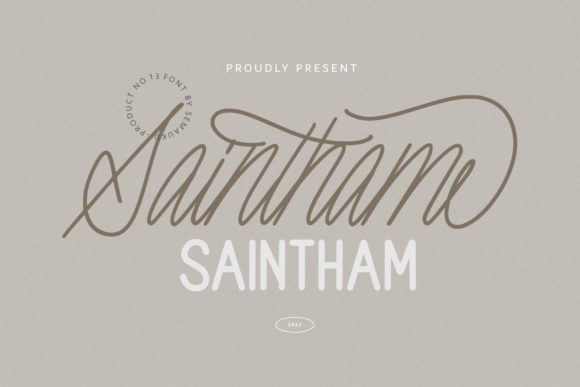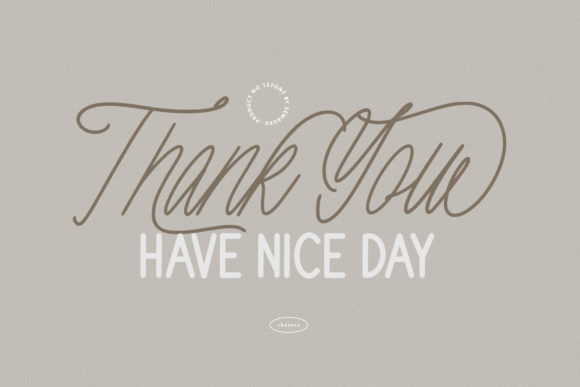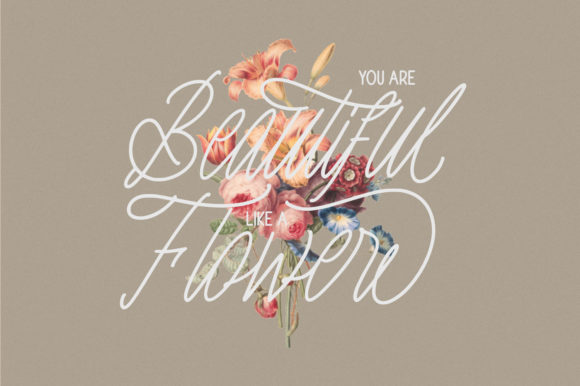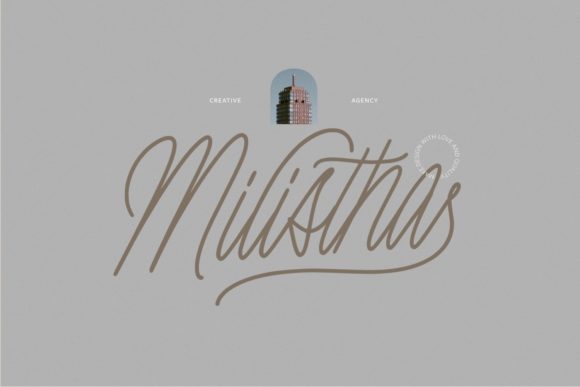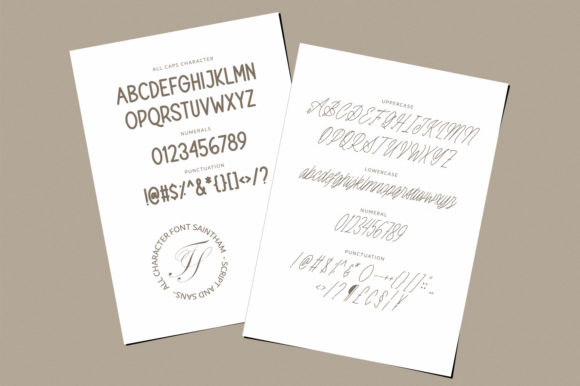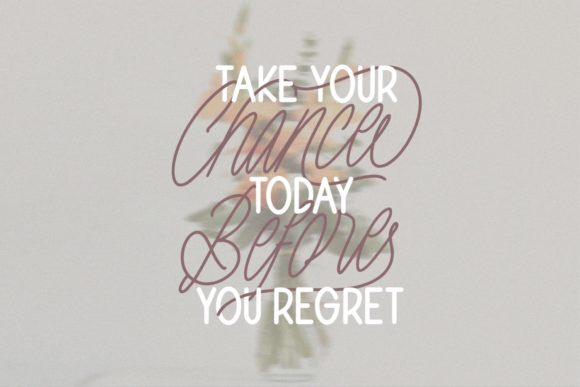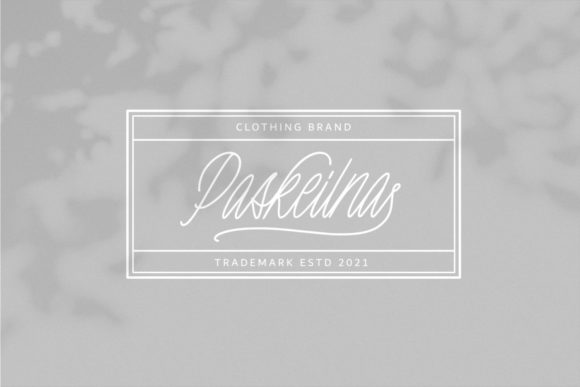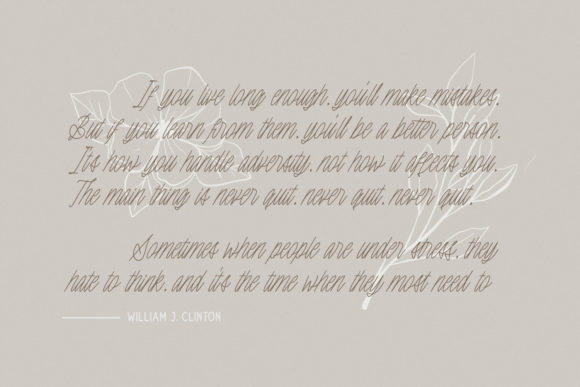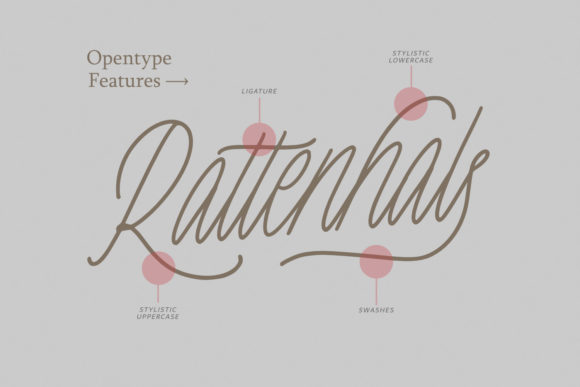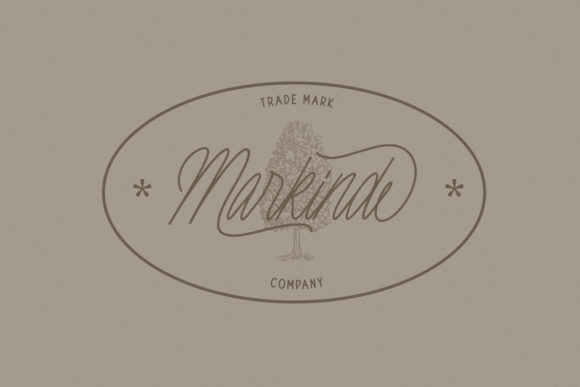
Saintham Font
About Saintham Font
“Saintham” presents a dynamic duo font featuring both a monoline script and a cool sans-serif typeface. This combination offers a versatile and stylish blend that can elevate a variety of design projects. The monoline script exudes a classy and unique charm, while the sans-serif font contributes a cool and contemporary aesthetic.
The script font of “Saintham” adds a touch of elegance and uniqueness to your designs. Its monoline style gives it a sophisticated appearance, making it suitable for a range of applications, from logos and branding to various media projects. The sans-serif font, on the other hand, introduces a modern and cool element that complements the script, providing flexibility and diversity in your design toolkit.
This font duo is well-suited for a variety of media, showcasing its adaptability across different platforms. Whether you’re working on print materials, digital designs, or branding projects, the “Saintham” font duo provides a harmonious balance between a classy script and a cool sans-serif, ensuring a dynamic and eye-catching visual impact.
In summary, “Saintham” is not just a font; it’s a versatile design tool that offers a perfect balance between a monoline script and a contemporary sans-serif. Embrace this duo font for your projects, and witness how it brings a touch of class and coolness to your designs across various media.